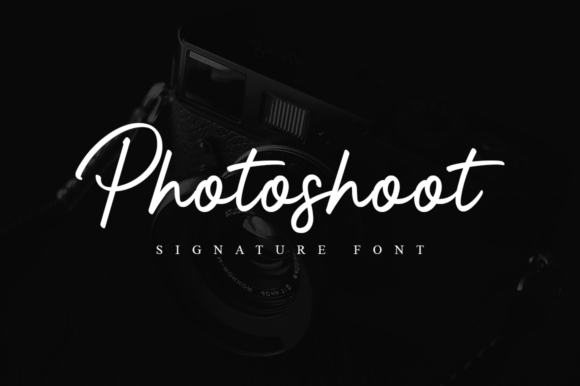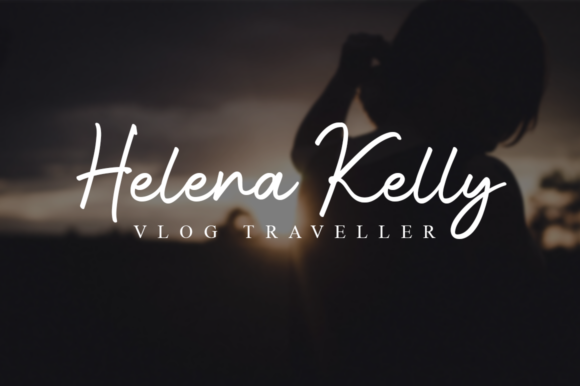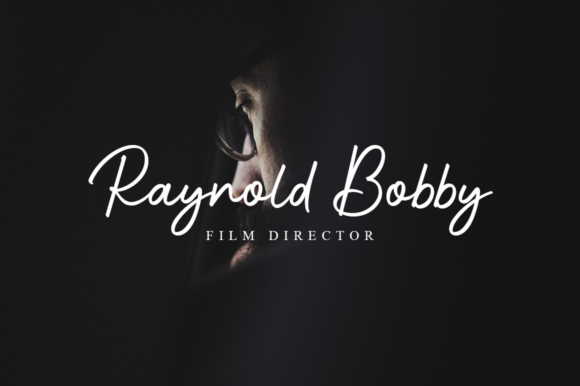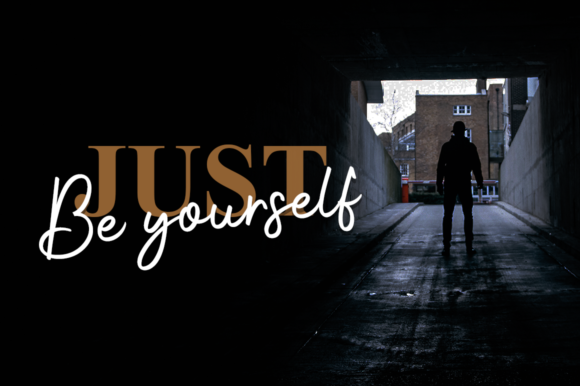
Photoshoot Font
About the Photoshoot Font
Welcome to the world of Photoshoot Font, a typeface that will inspire your next great project. Photoshoot is a unique script with a classy and fancy feel. This handwritten font will add an authentic vibe to any design project!
Photoshoot excels in applications requiring a touch of elegance and sophistication, such as wedding invitations, luxury branding, or short headlines on stylish posters. Its flowing script lends itself well to creating a sense of occasion. However, its decorative nature makes it unsuitable for body text or UI elements where readability is paramount; long blocks of Photoshoot would be difficult to decipher.
Pairing Photoshoot with a clean sans-serif like Montserrat or a classic serif such as Garamond creates a balanced and sophisticated aesthetic. For a more modern feel, consider pairing it with a geometric sans-serif like Futura. The contrast between the hand-drawn nature of Photoshoot and the structured precision of these fonts will enhance the overall design.
Photoshoot projects a confident, slightly glamorous personality. Its elegant flourishes convey a sense of high-quality and timeless style, making it ideal for brands that wish to project an image of luxury and refinement.
Photoshoot Font Usage Examples
Photoshoot Font Example